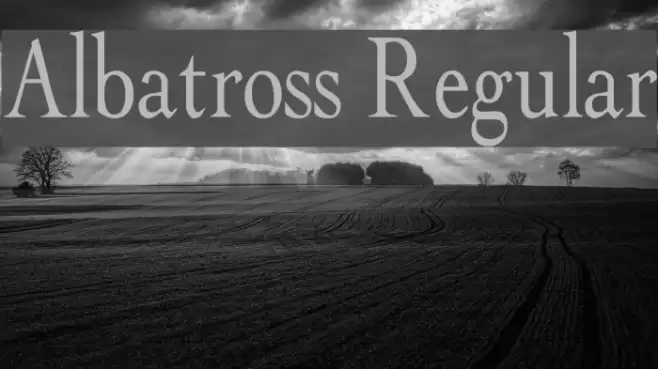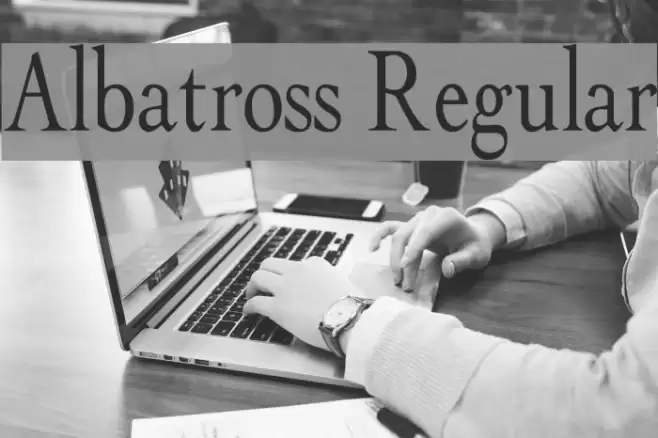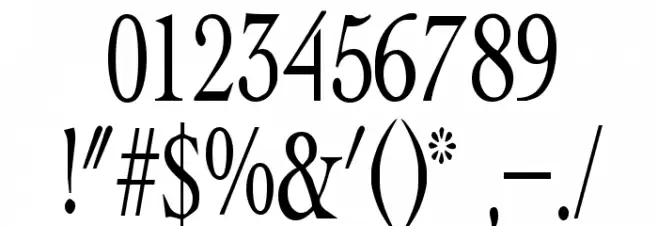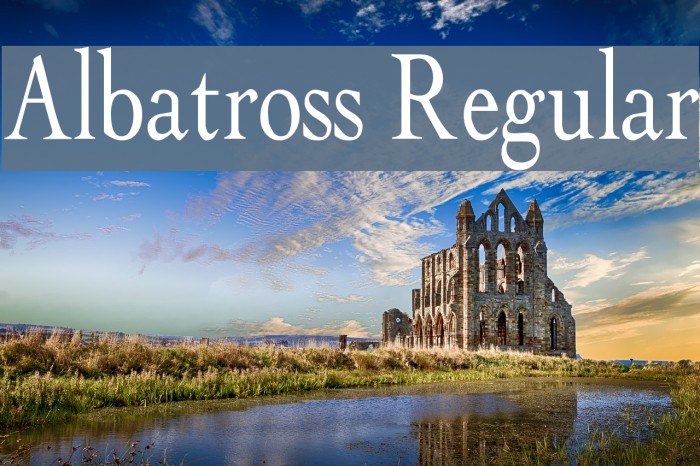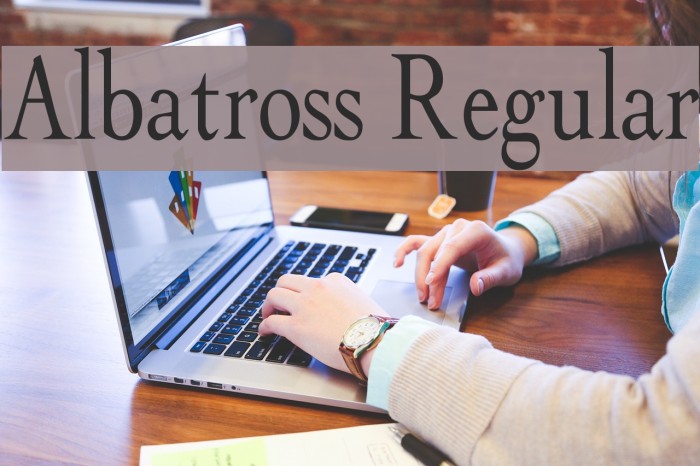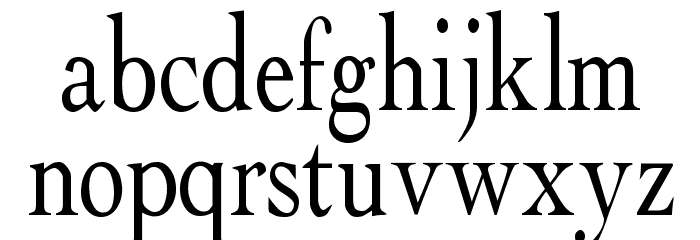
Albatross Regular Font
Albatross Regular Description
This font exhibits a classic serif style with elegant and refined letterforms. The serifs are pronounced, adding a touch of sophistication and tradition. The uppercase letters are bold and commanding, while the lowercase letters maintain a balanced and harmonious appearance. The numerals are clear and distinct, ensuring readability. Special characters are well-integrated, maintaining the overall aesthetic. This font is versatile, suitable for both formal and creative applications, making it a timeless choice for various design needs.
A classic serif font with elegant and refined letterforms from Serif fonts.
- Proposed Projects: Ideal for book covers, editorial layouts, branding, and formal invitations.
- Overall Style: Classic